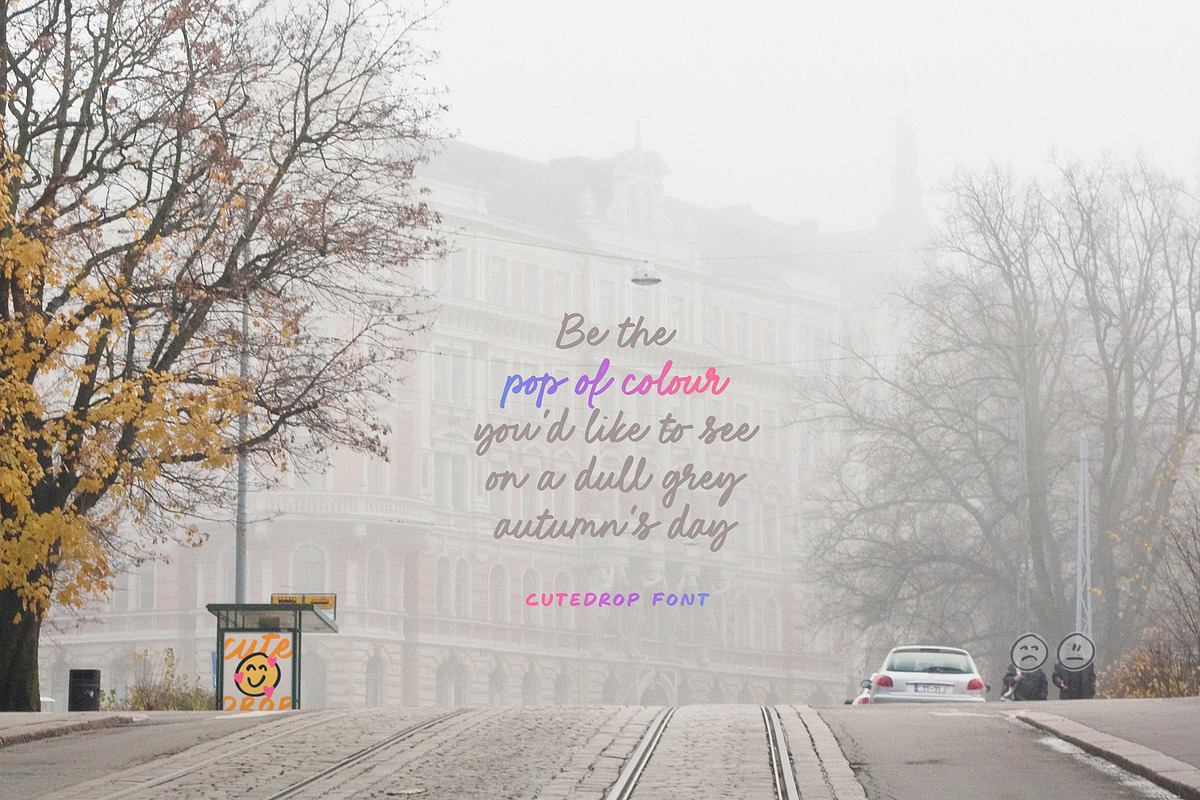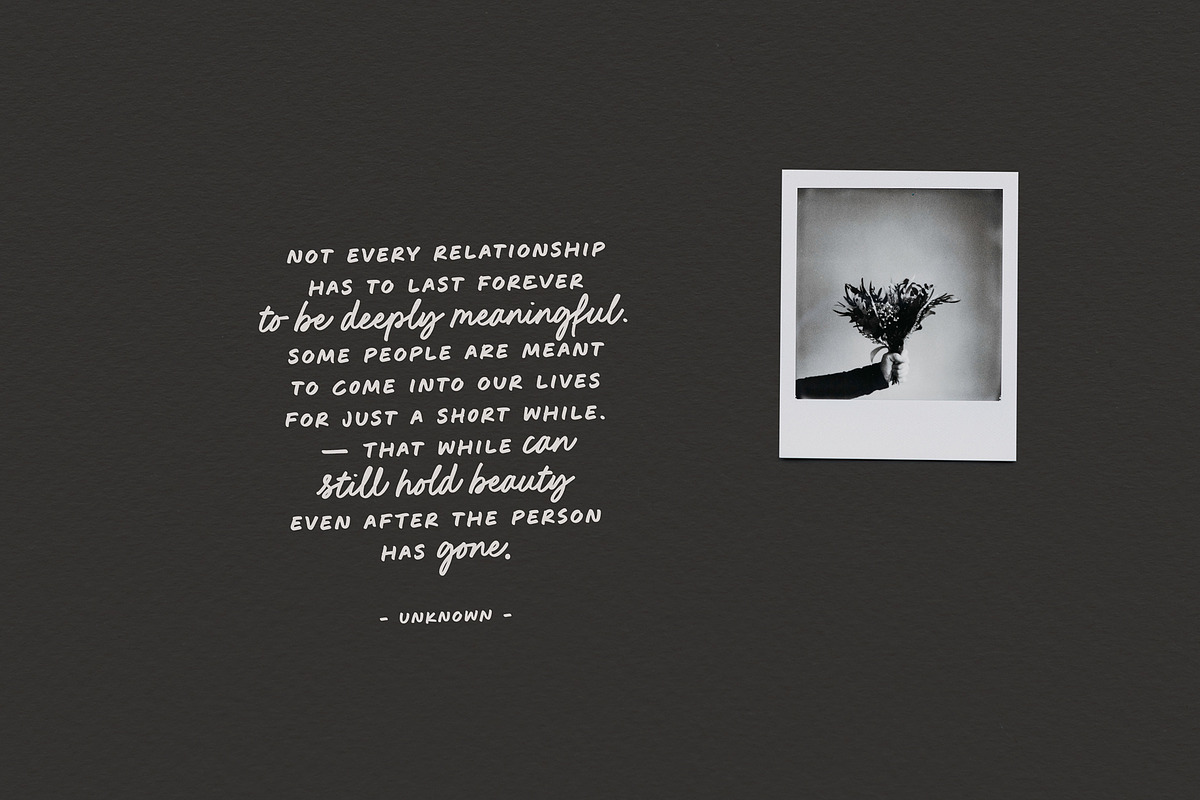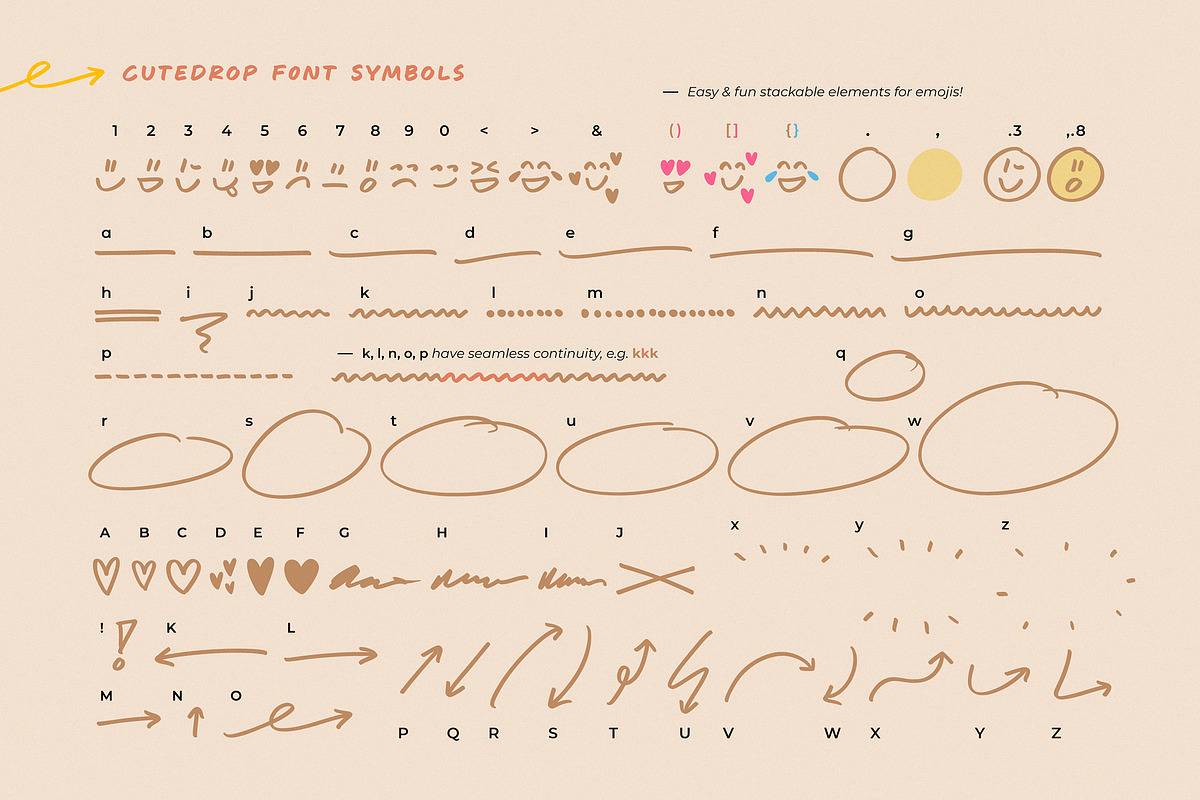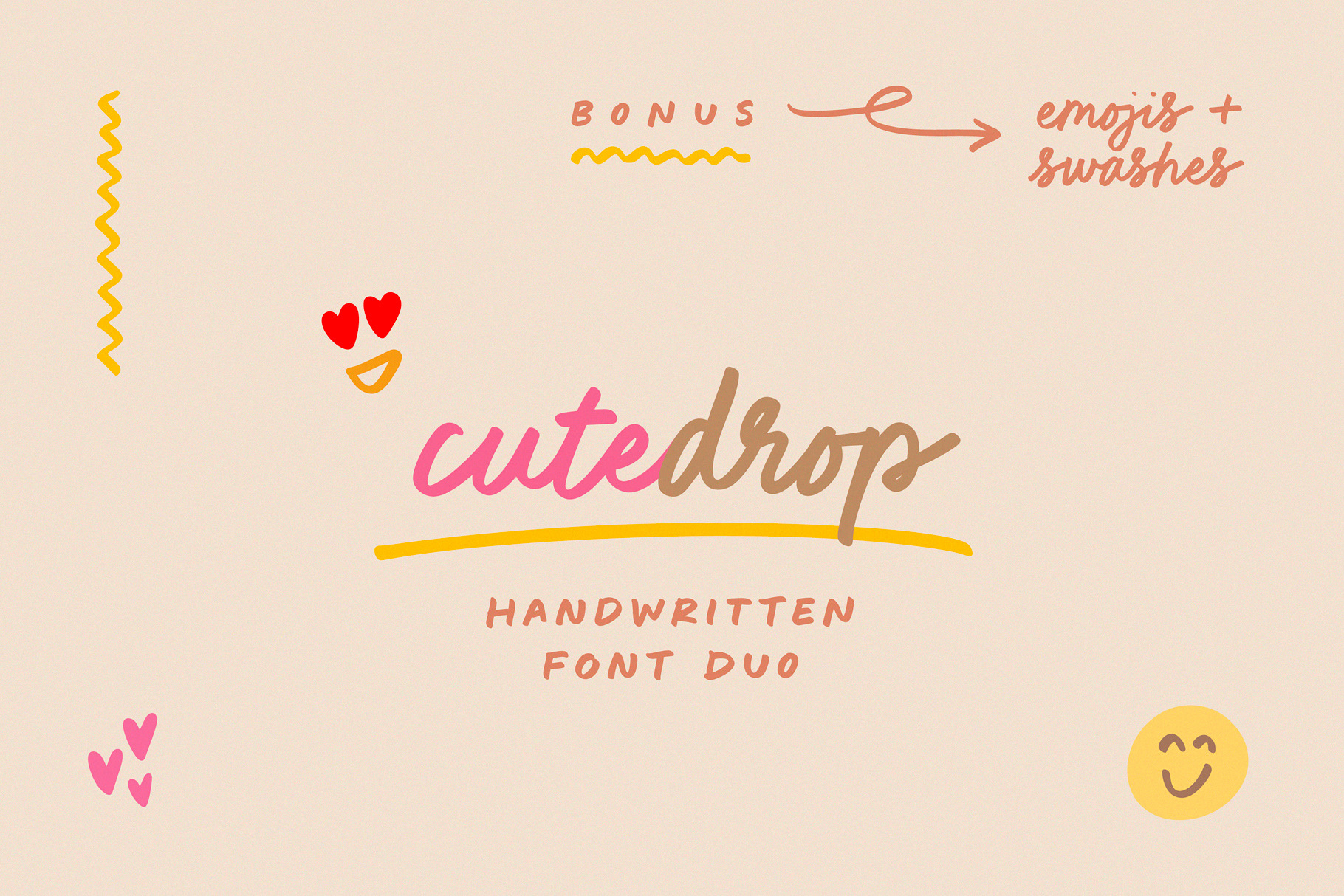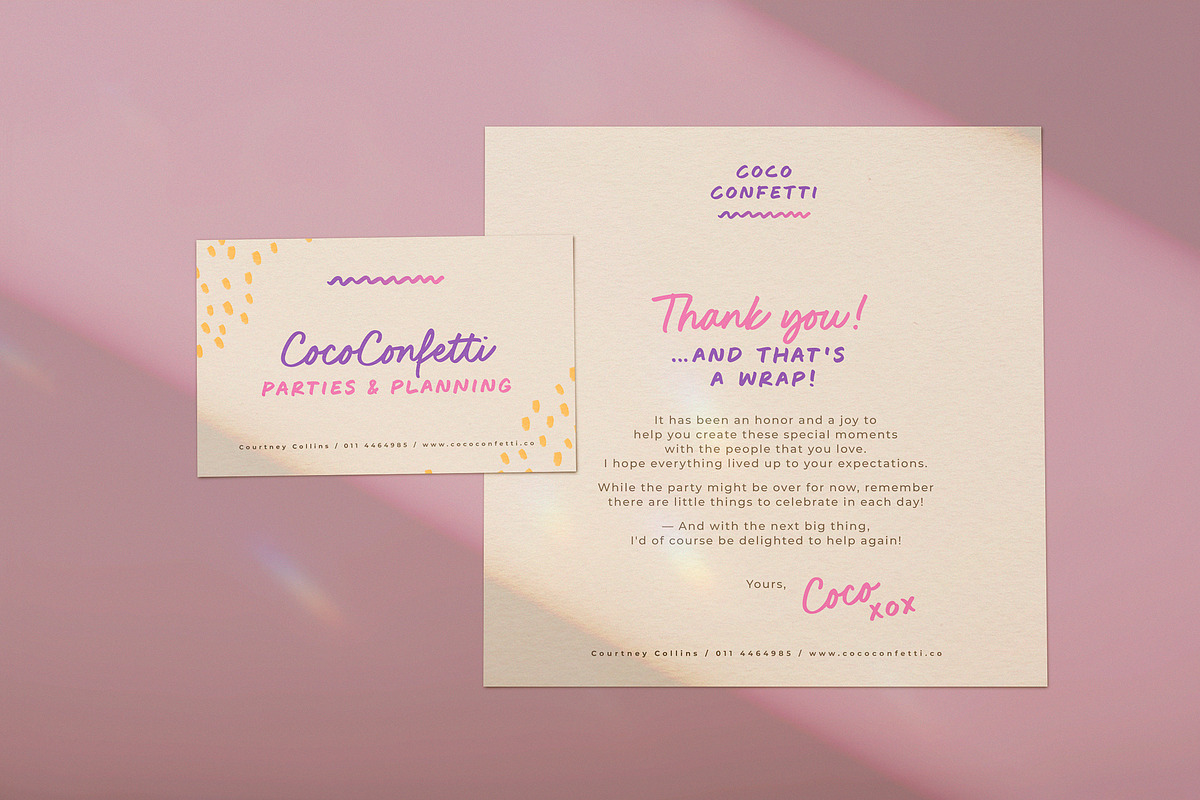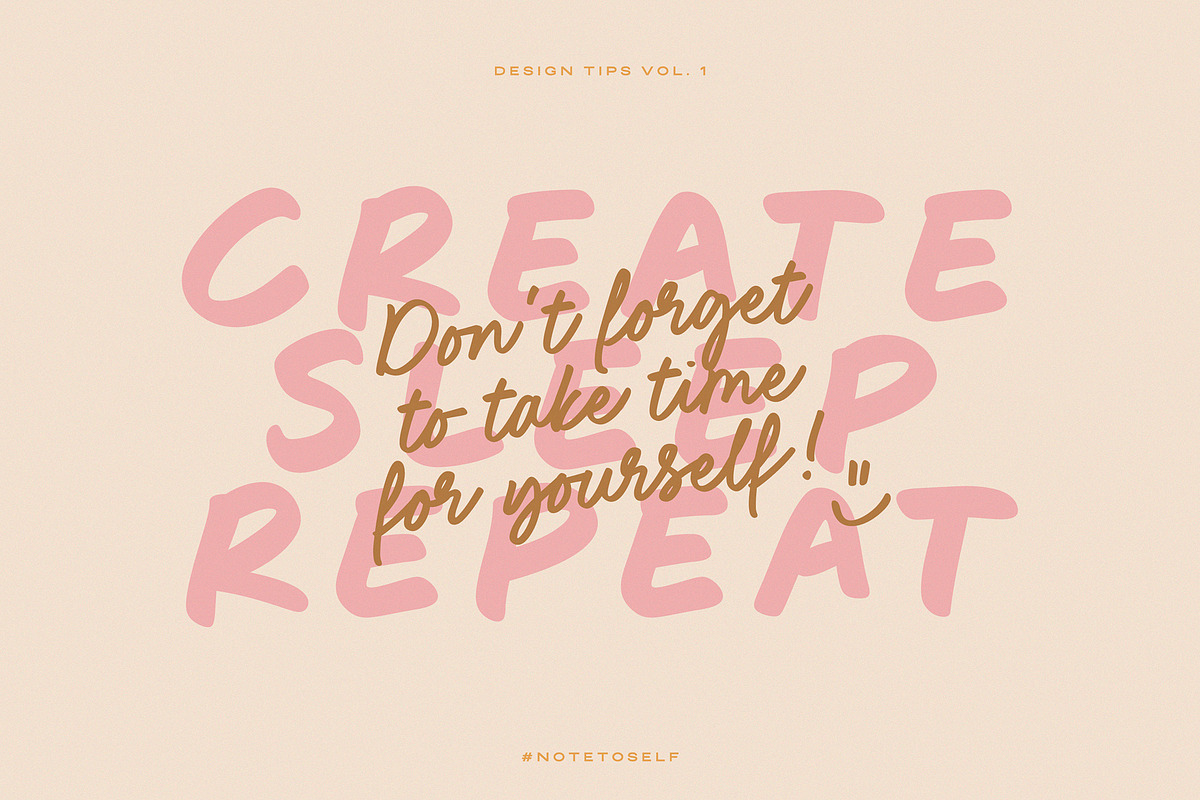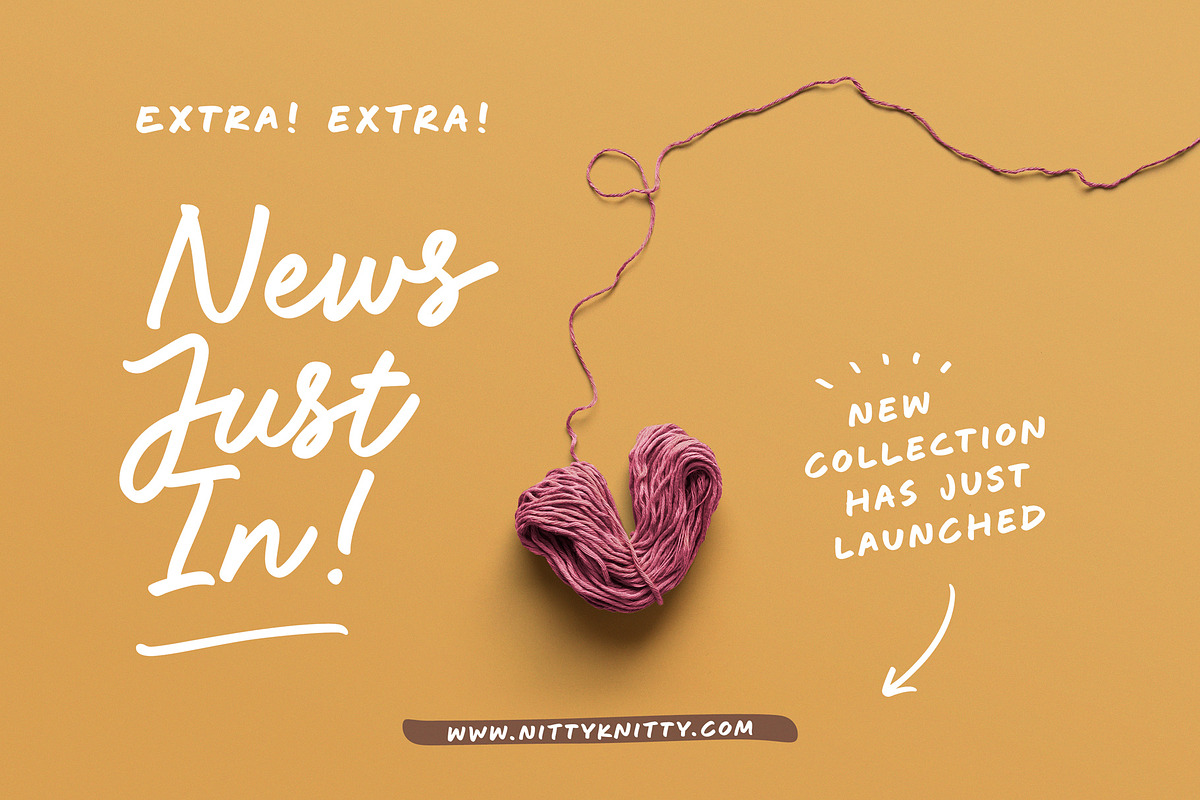
CuteDrop handwritten font duo & more
Well, hello there! 😍 CuteDrop is a, ahem, cute handwritten font duo with a matching script and all caps font. Both fonts are authentically handwritten with the same marker pen for a consistent look, so you can safely use them together. Or apart. Or mix & match, however you like!
For some extra hand drawn cuteness, I've also thrown in a third bonus font with emojis, hearts, underlines, arrows, circles & scribbles - again drawn with the same pen to perfectly go with the writing. (If you like the emojis, I've also expanded them into an emoji font! Check out CuteEmoji → https://crmrkt.com/4do8RV)
Now it is easy & quick to create designs with a full handmade look, without the headache of making elements from different sources fit together - these are all designed to look like they came from the same pen (because they literally did!)
Even if I do say so myself, this set is super fun to play with!
The CuteDrop family consists of three fonts;
CuteDrop Script - a pretty handwritten script including a set of lowercase alternates
CuteDrop Caps - a matching all caps font with two sets of uppercase letters
CuteDrop Symbols - a dingbats font of 65 hand drawn elements